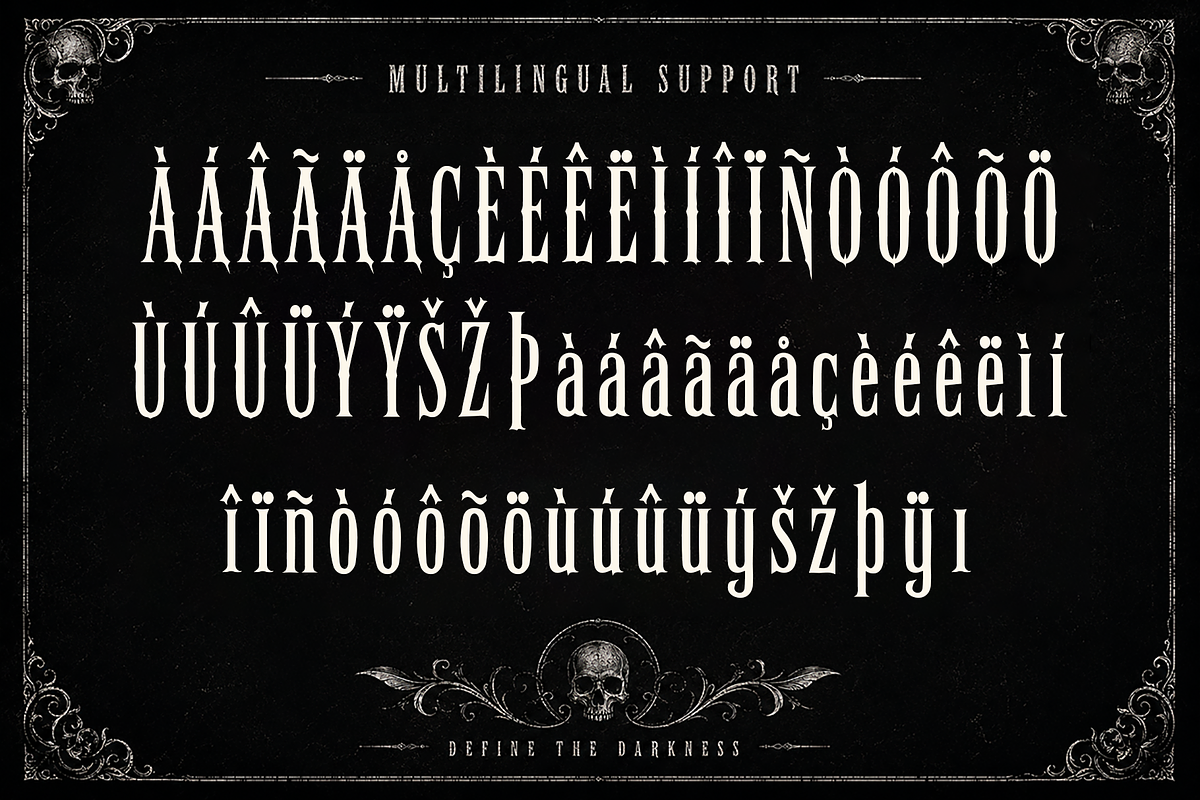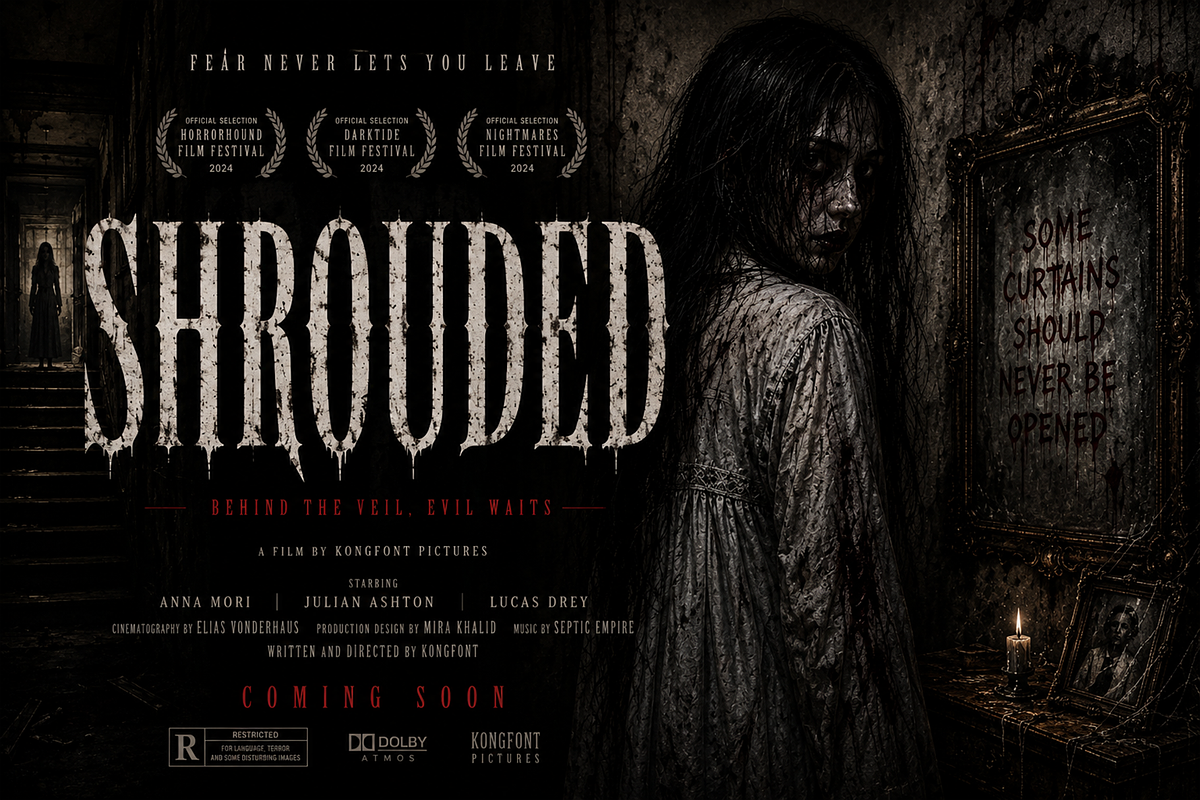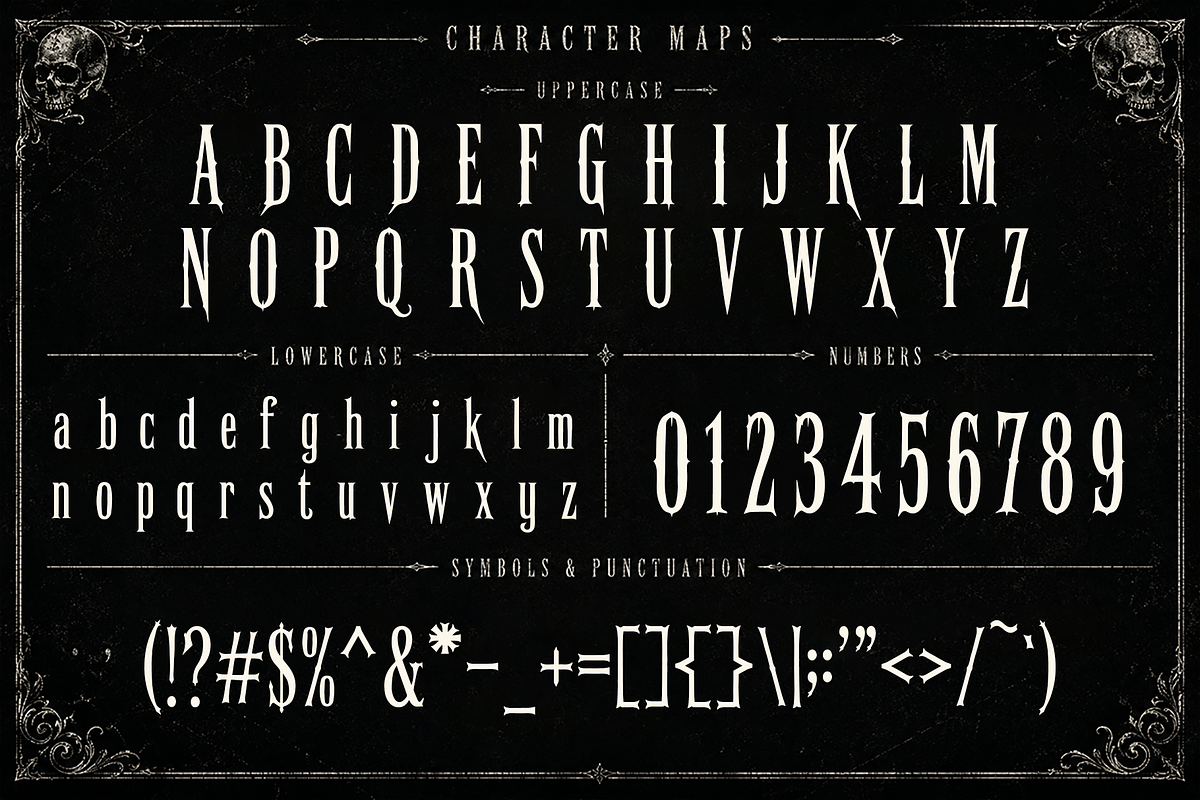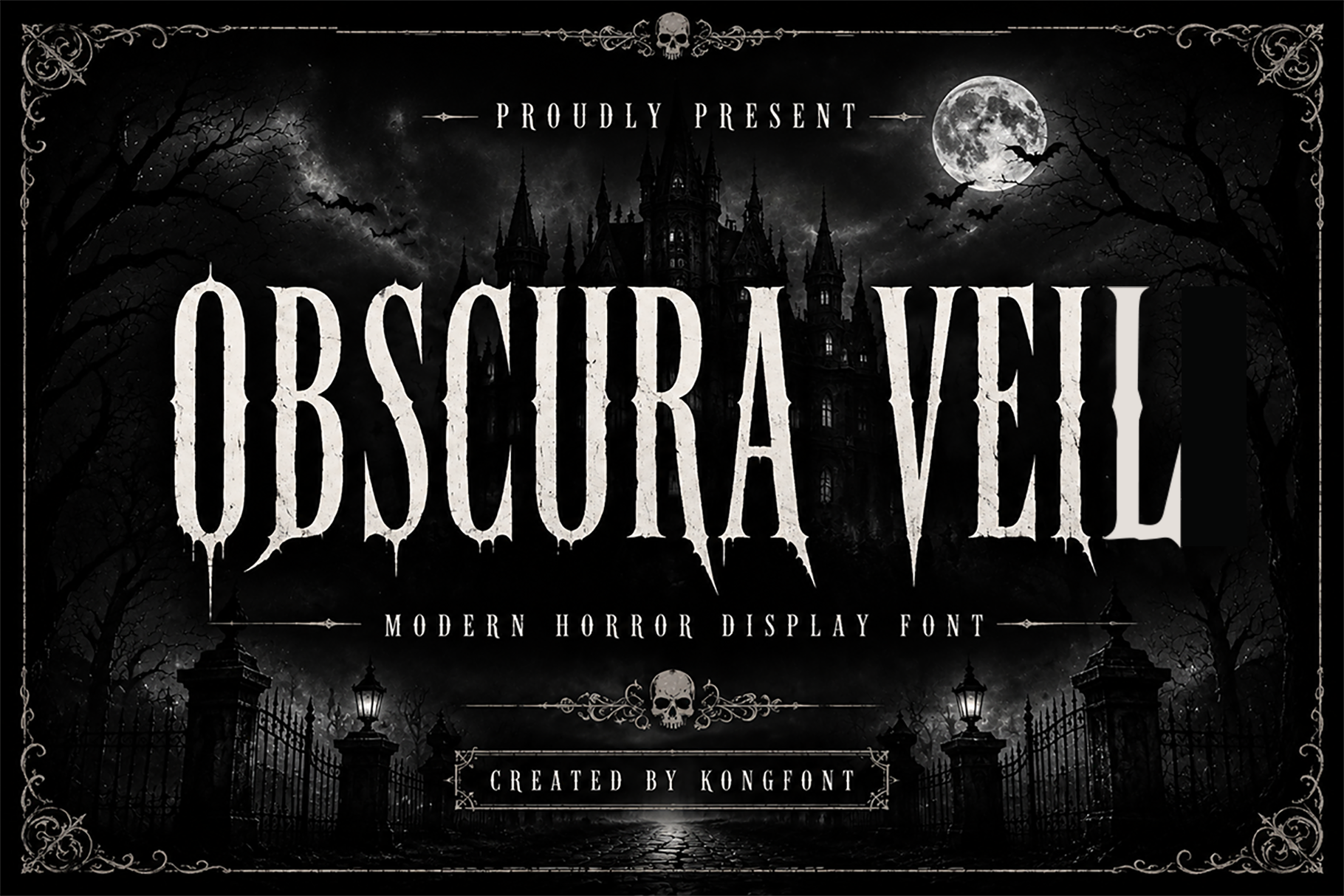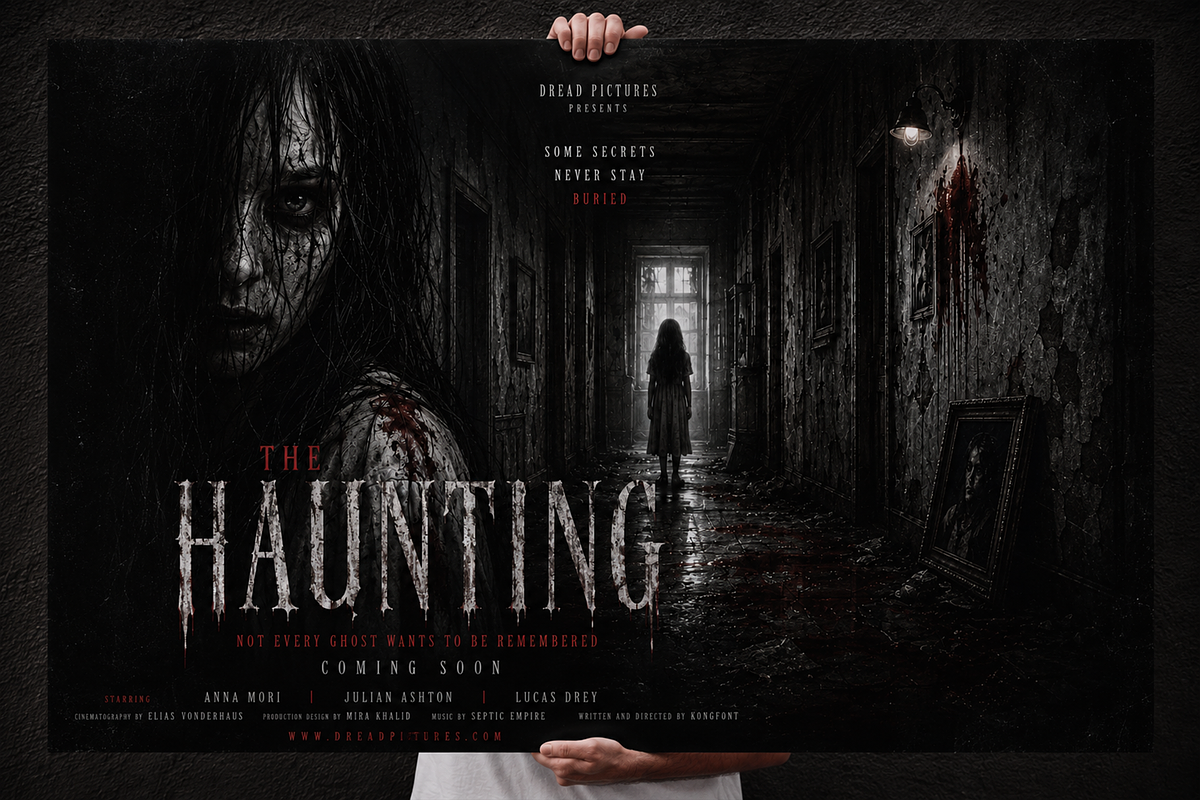
Obscura Veil - Horror Display Font
Obscura Veil - Modern Horror Display Font
Meet Obscura Veil, a modern horror display font crafted to evoke fear, mystery, and gothic elegance. Featuring elongated letterforms, razor sharp terminals, and distressed dripping details, this typeface captures the chilling atmosphere of haunted castles, cursed legends, and supernatural nightmares. Its haunting silhouette creates an unforgettable presence, making it the perfect choice for projects that demand a dark and cinematic aesthetic.
Designed for bold visual storytelling, Obscura Veil is ideal for horror movie posters, Halloween events, haunted attractions, thriller novels, gothic branding, vampire themed artwork, paranormal games, escape room promotions, YouTube horror content, streaming graphics, merchandise, apparel, album covers, and dark fantasy projects. The dramatic proportions and eerie details deliver exceptional impact while maintaining excellent readability for headlines and display typography.